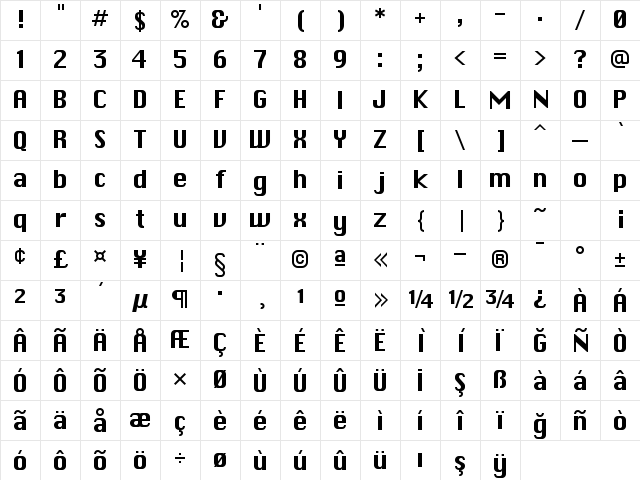
TrSah Chicago Regular
Complete TrSah Chicago Regular glyph index. Displaying only characters natively supported by TrSah Chicago Regular font.
Design Context for TrSah Chicago
TrSah Chicago is a composed and adaptable typeface that performs quietly and consistently across a wide range of design contexts.
Pro Tip: Use TrSah Chicago in both headline and body roles to test its range before committing to a single application.